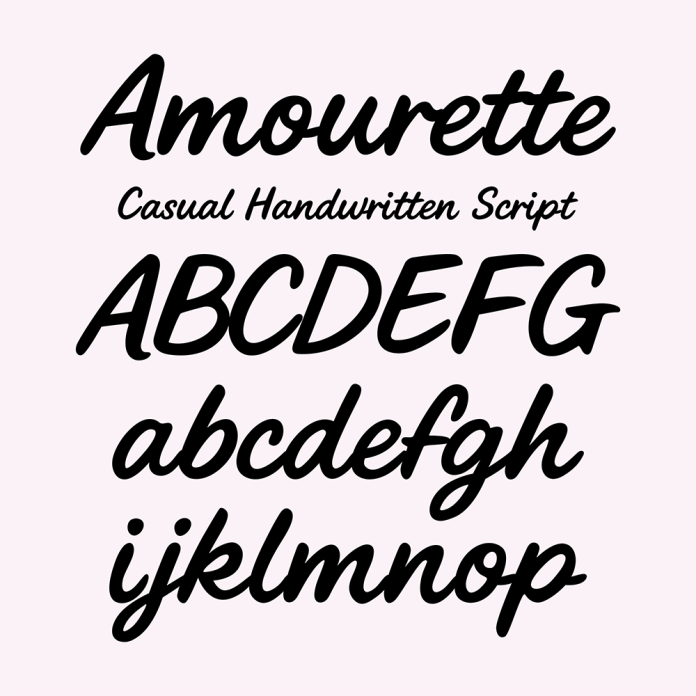
BFC Amourette Casual Brush Script Cursive Font is a stylish and elegant typeface that combines elements of brush and script fonts. It features flowing, cursive letterforms with a casual and natural brush stroke appearance. This font is perfect for adding a touch of sophistication and charm to invitations, branding, and other design projects.